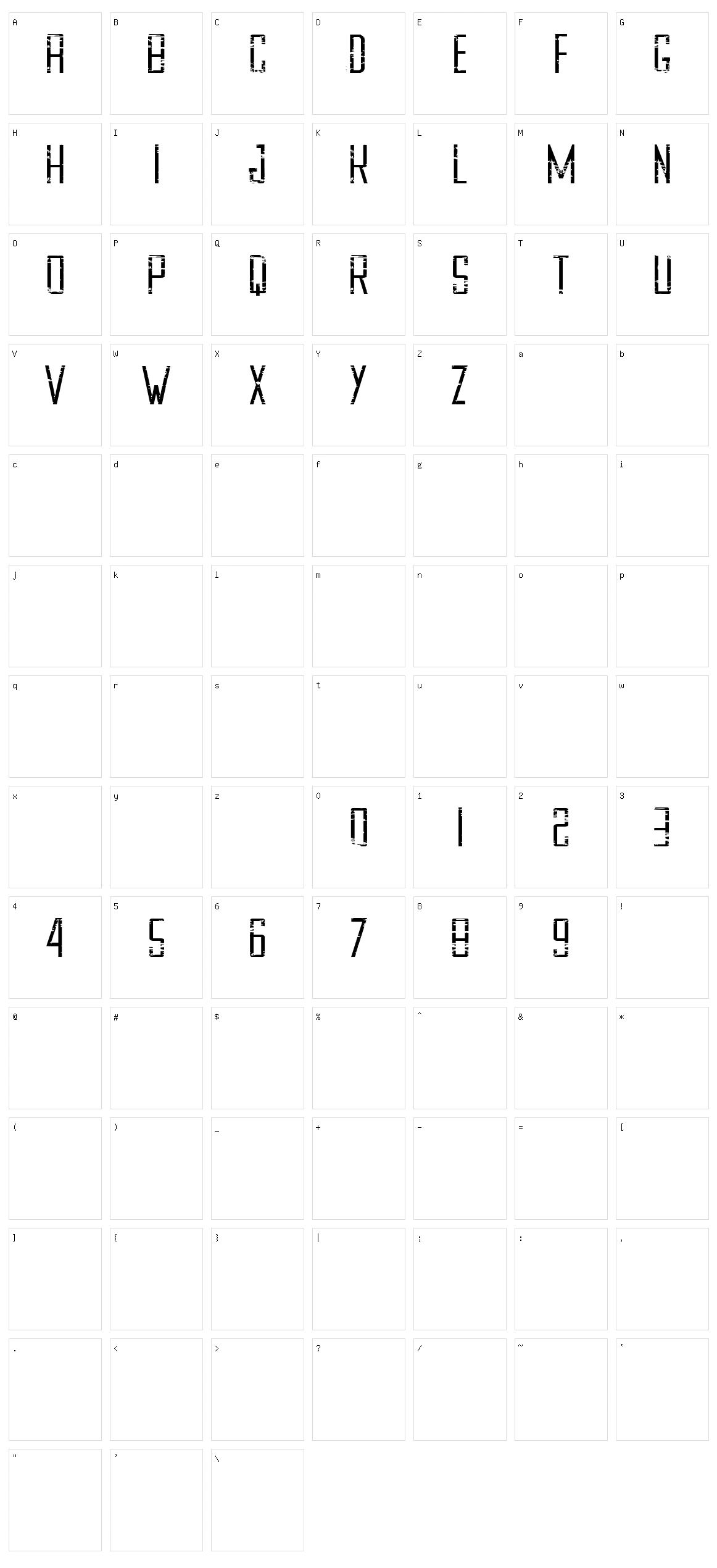
The free font Confidentiality is carefully designed by Octotype | Thomas Boucherie, showcasing a thoughtful balance of creativity and usability and falls under the Eroded font style. When you download the ZIP file, it contains only 32.38 KB of font files, making it lightweight and quick to download. Please review the license details below to understand permitted usage and distribution rights. If license information is not available, we recommend using this font for personal projects only or contacting the author directly for commercial usage permissions.